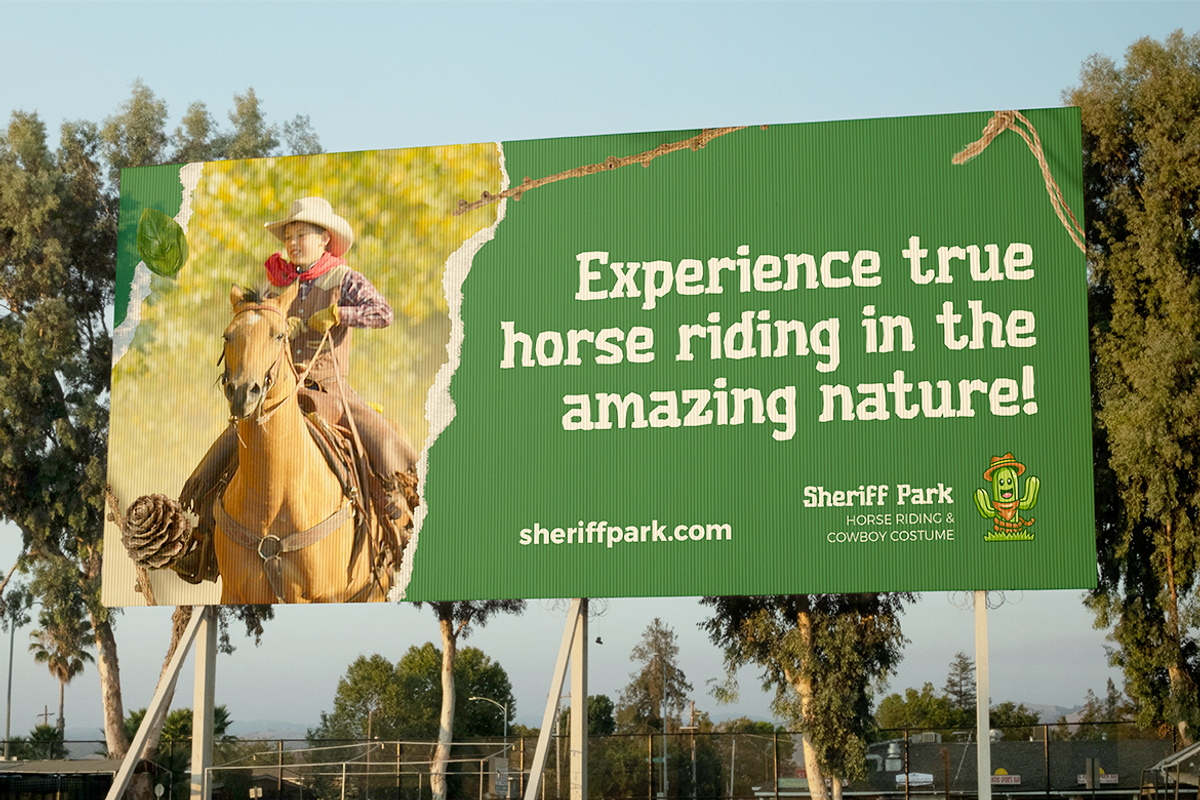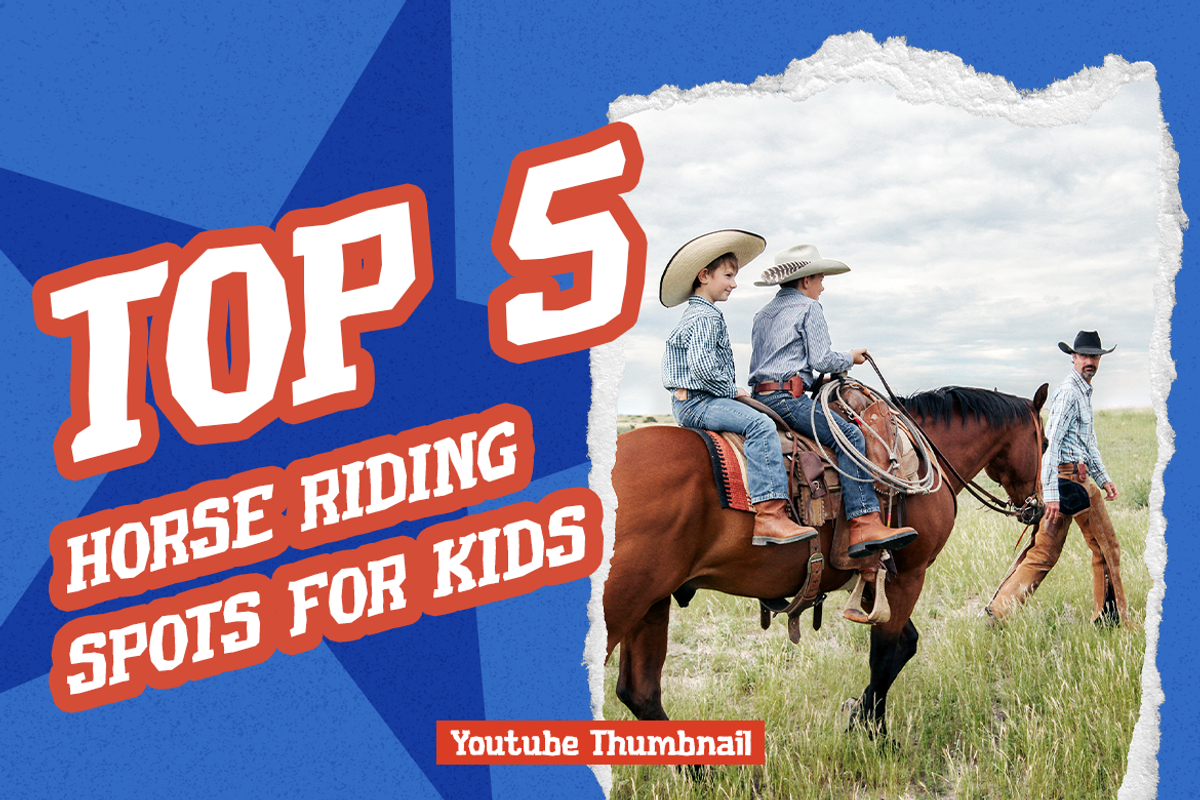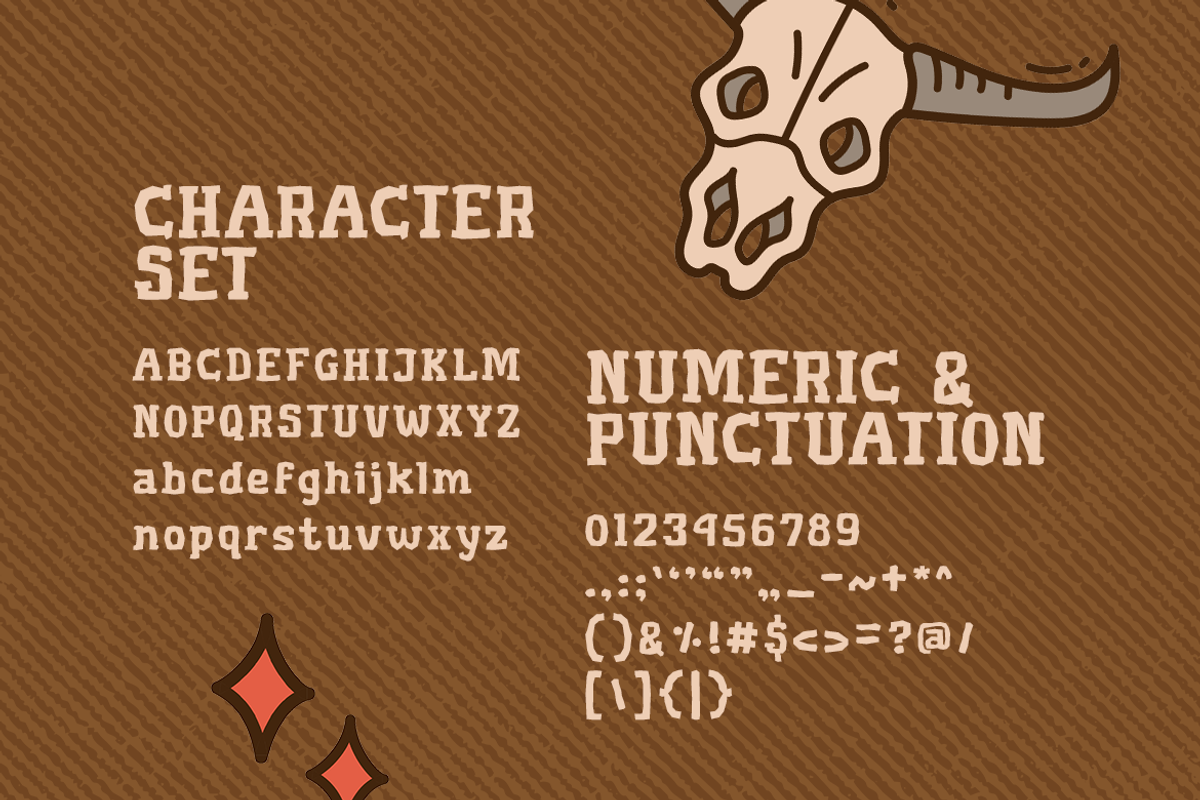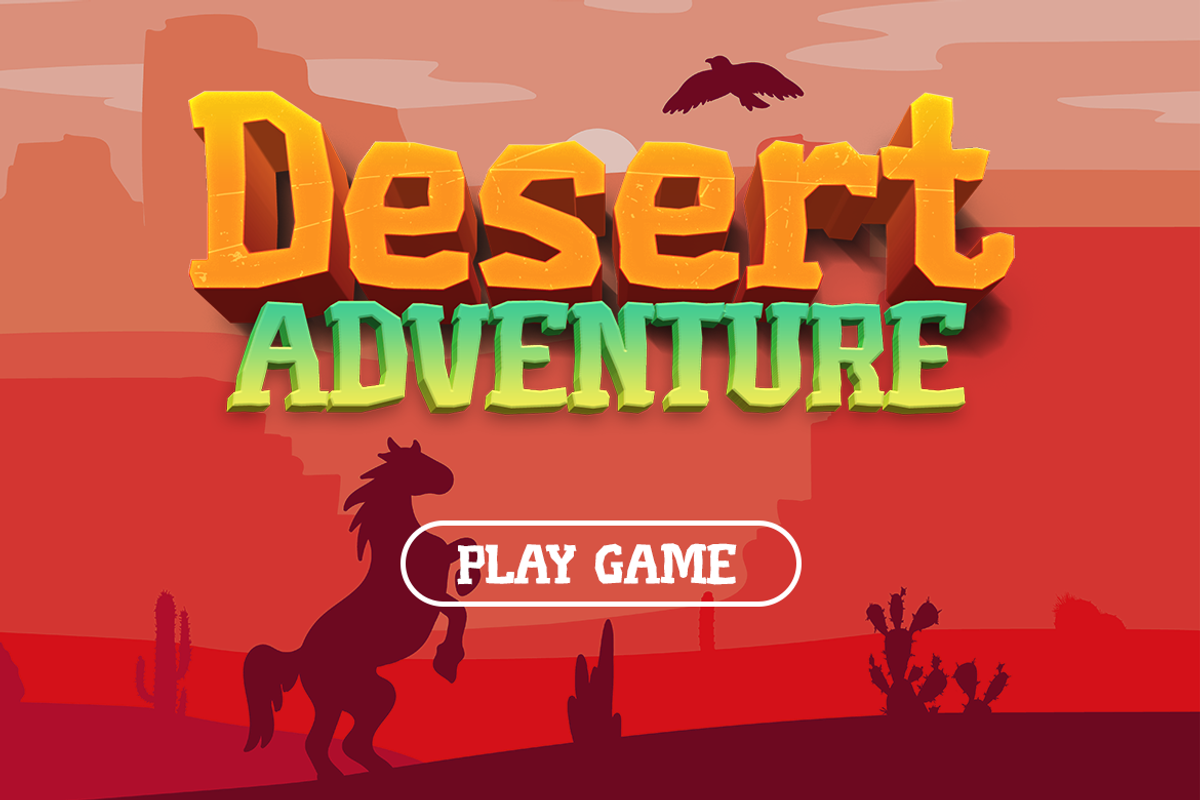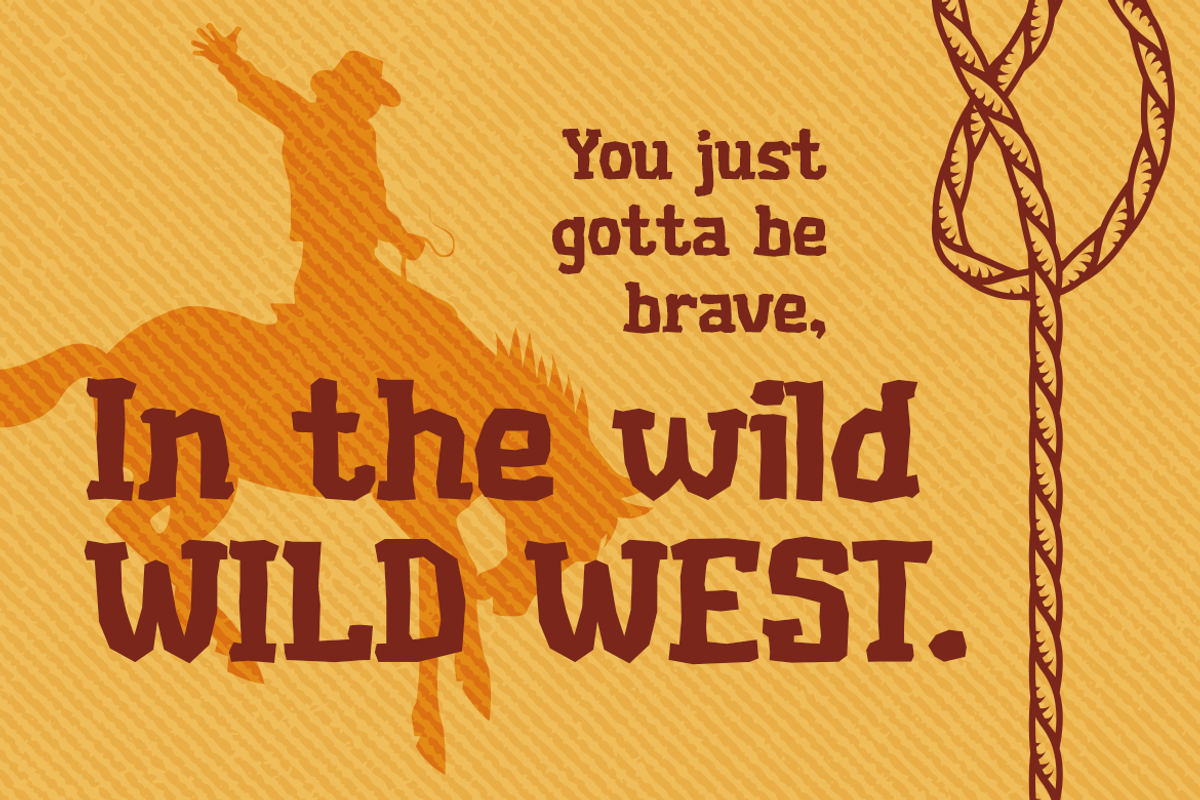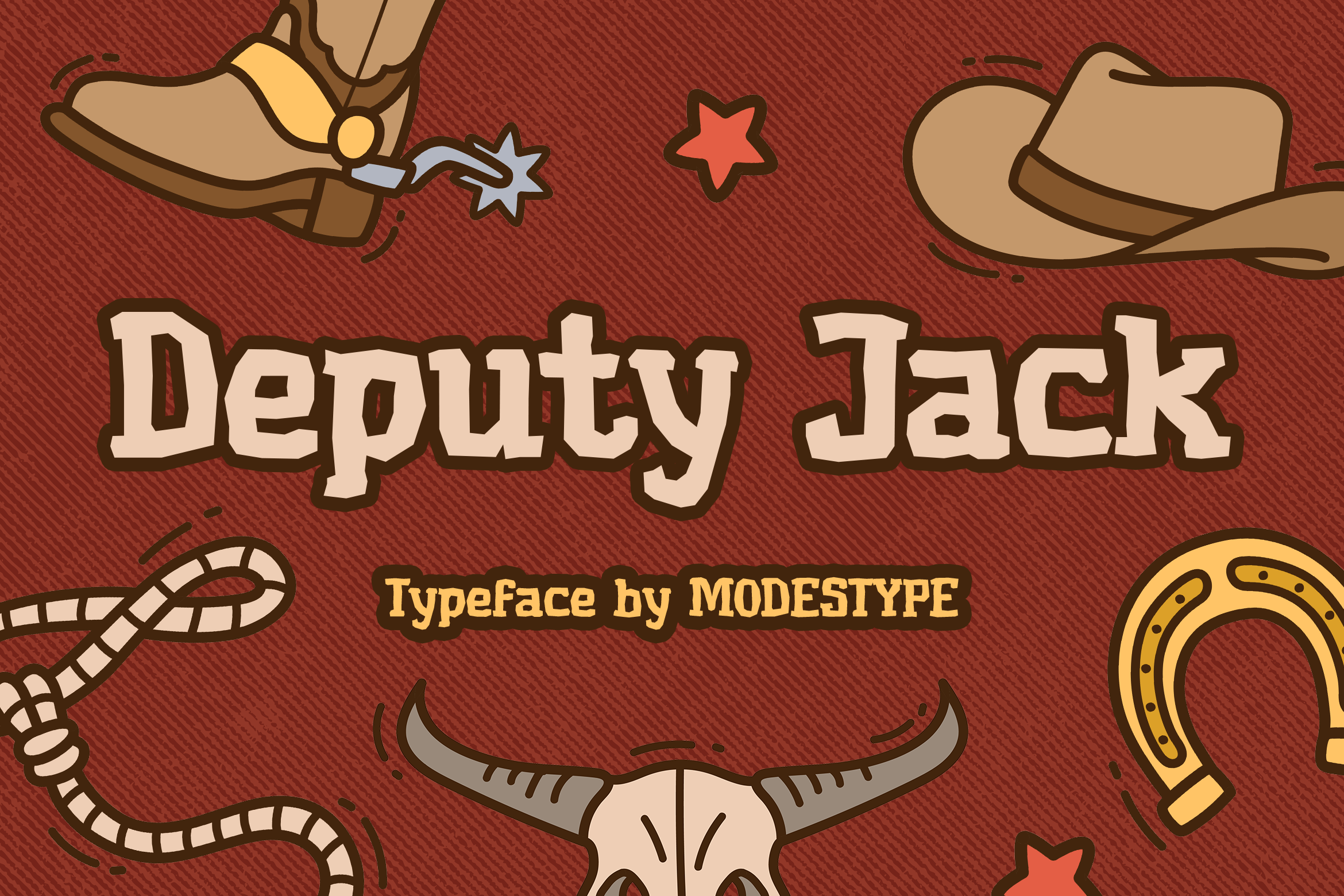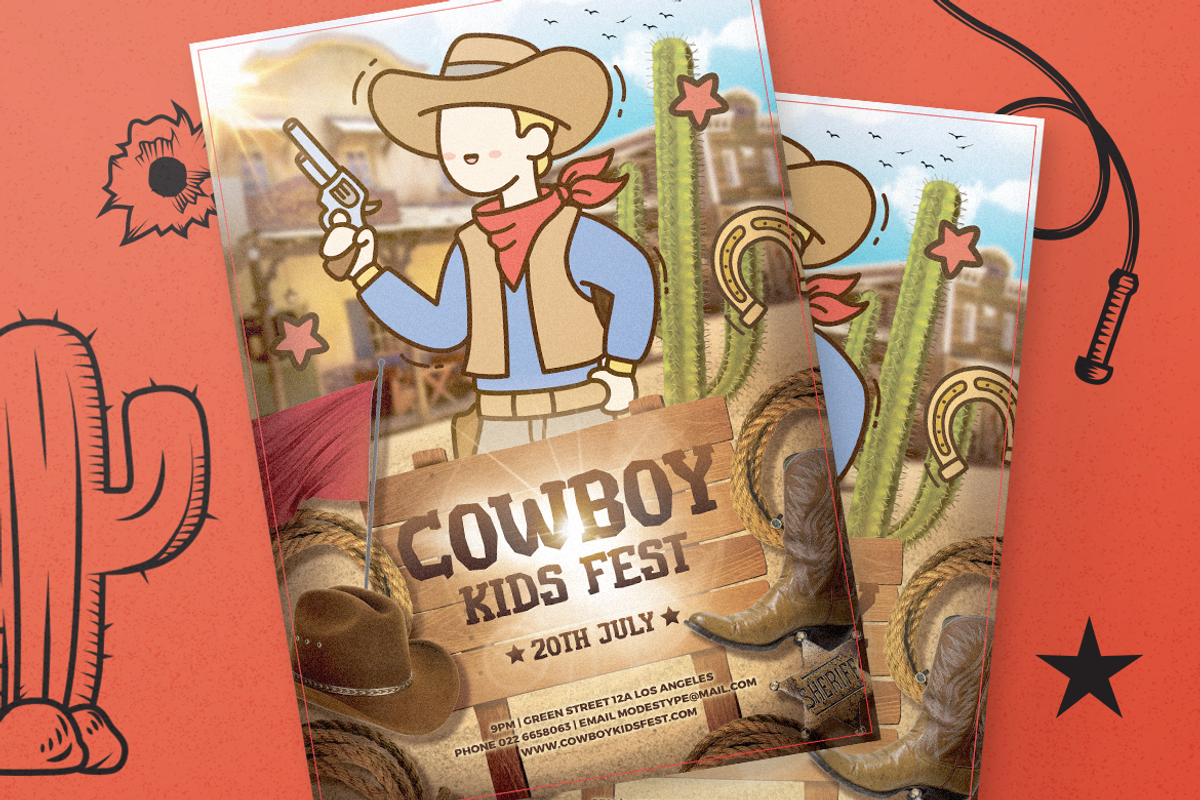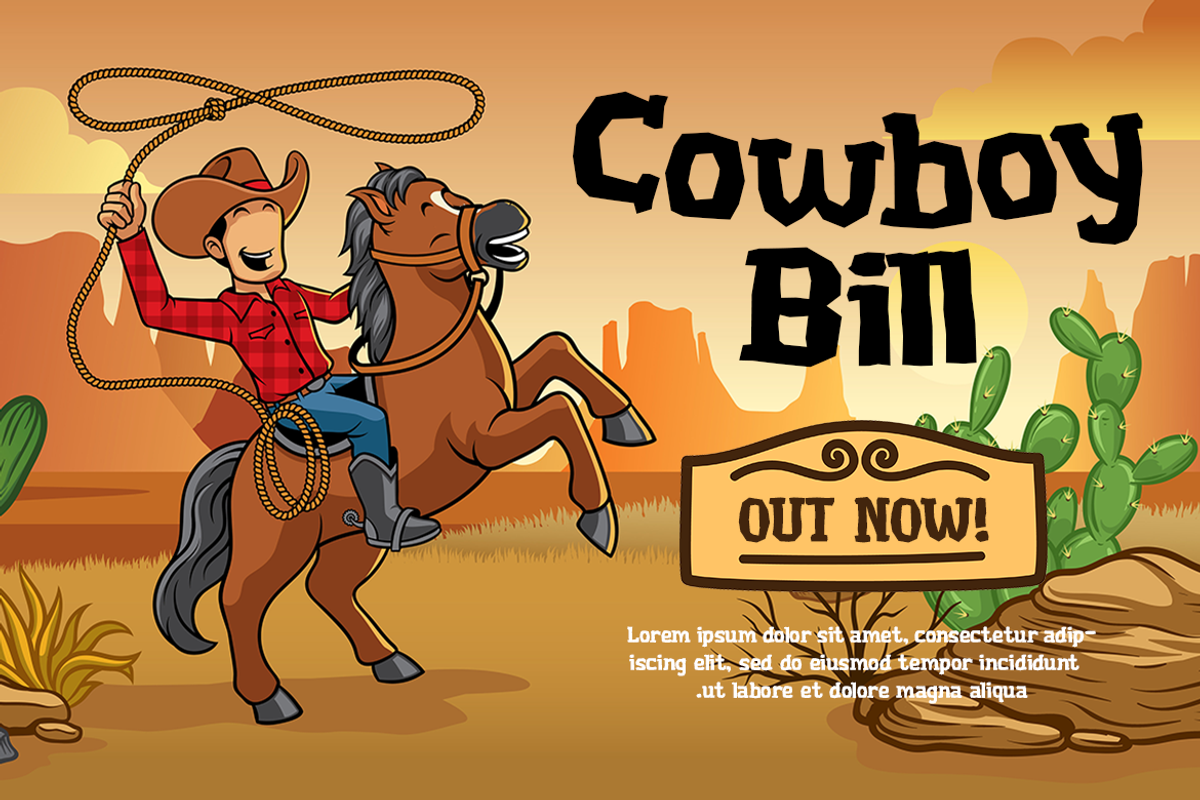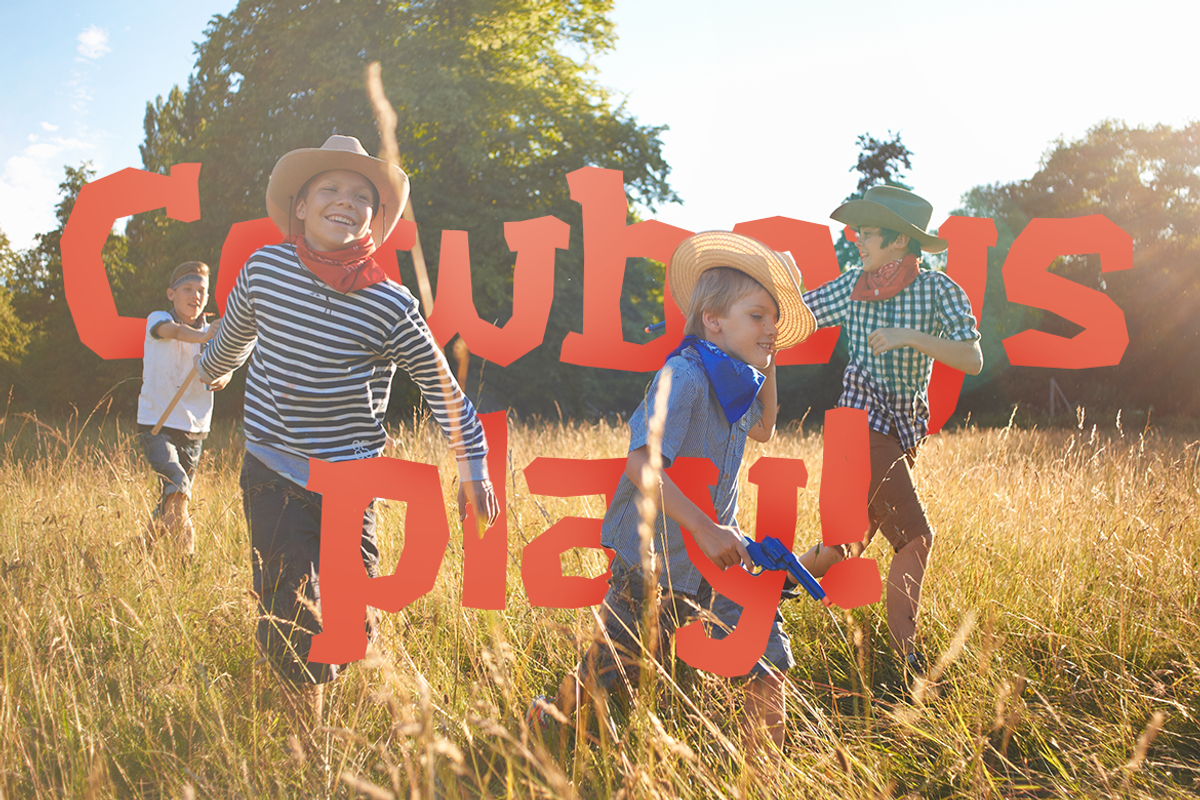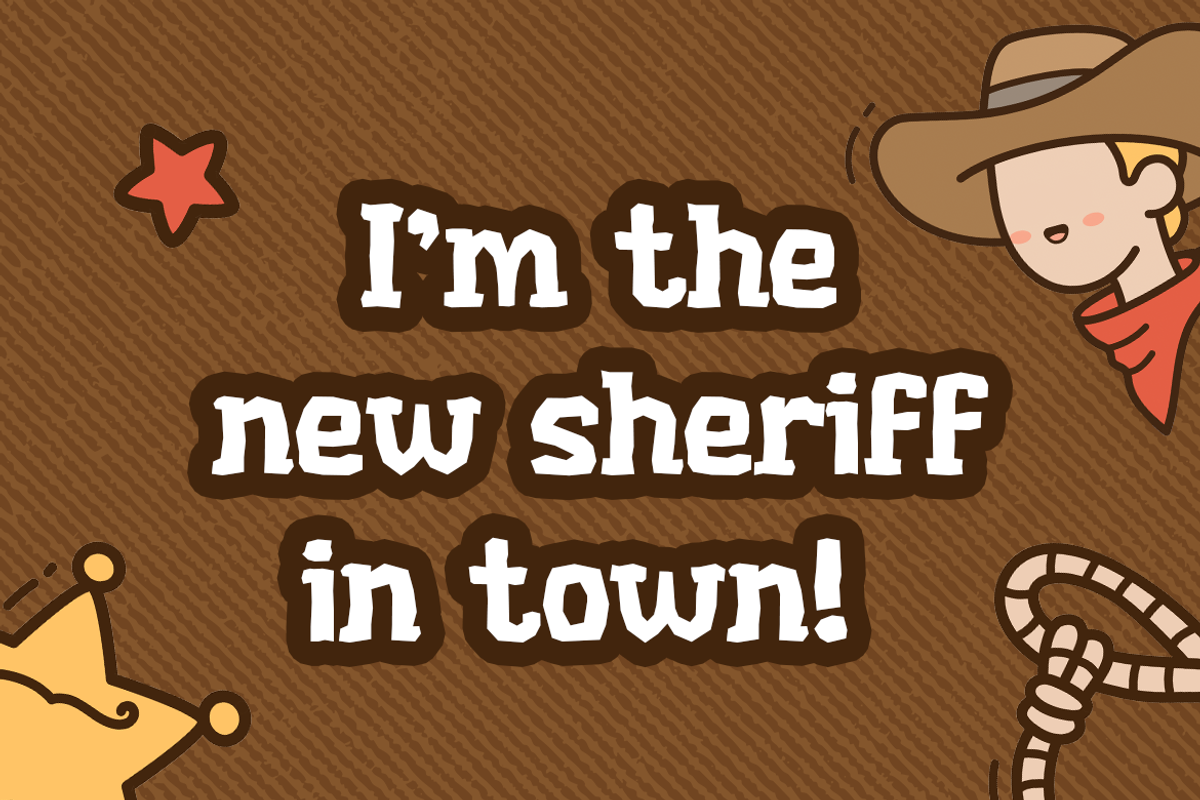
Deputy Jack - Cowboy Kids Font
Deputy Jack - Western Kids Font
A vest, a stetson, a badge, and a toy plastic gun... Cowboy in the making. Deputy Jack will bring that western era in front of your front door, and let the kids explore the wilderness with fun and joy.
Suit perfectly for western books market, online games, exploration event poster, school supplies font, poster, movie title, youtube covers, youtube thumbnails, social media page covers and so on...